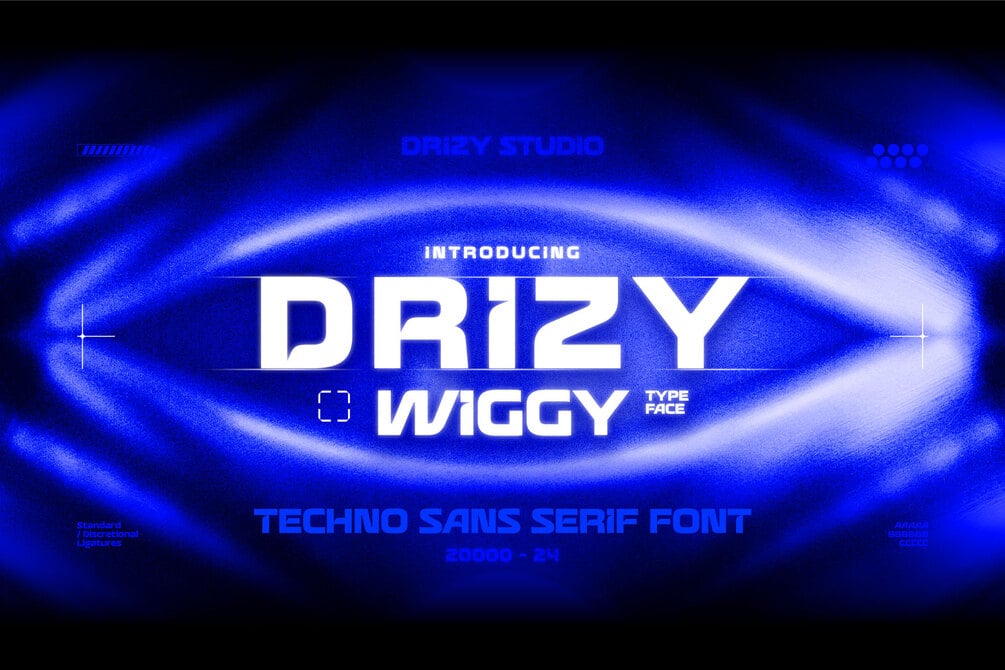
Drizy Wiggy – Techno Sans Serif Font
Drizy Wiggy – Techno Sans Serif Font is a radiates modernity and bold innovation, making it the ultimate choice for forward-thinking designers. With its sleek, futuristic design and meticulously crafted lines, this typeface is more than just a font it’s a statement of progress and creativity. Drizy Wiggy captures the perfect balance between boldness and sophistication, ensuring your projects stand out with a distinctive, dynamic aesthetic. Whether you’re working on tech inspired branding, high-impact headlines, or contemporary digital visuals, Drizy Wiggy elevates your designs with a sense of energy, precision, and visionary style.